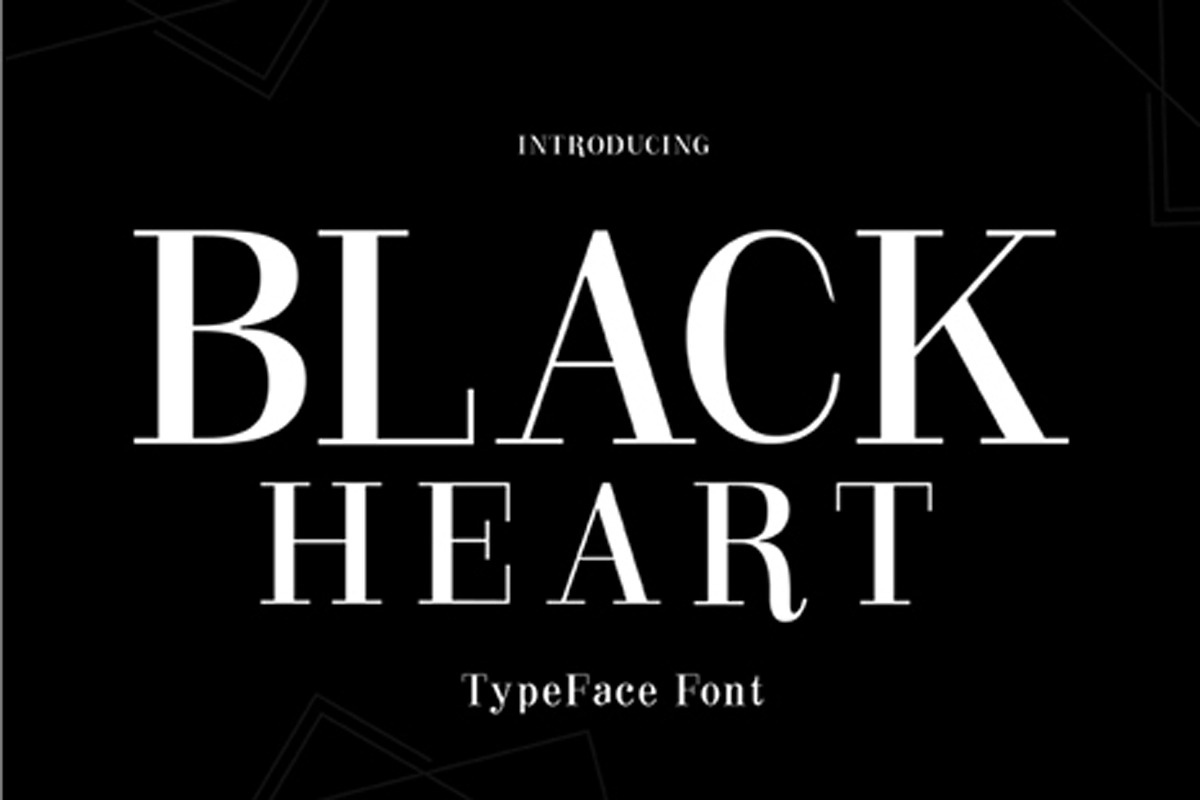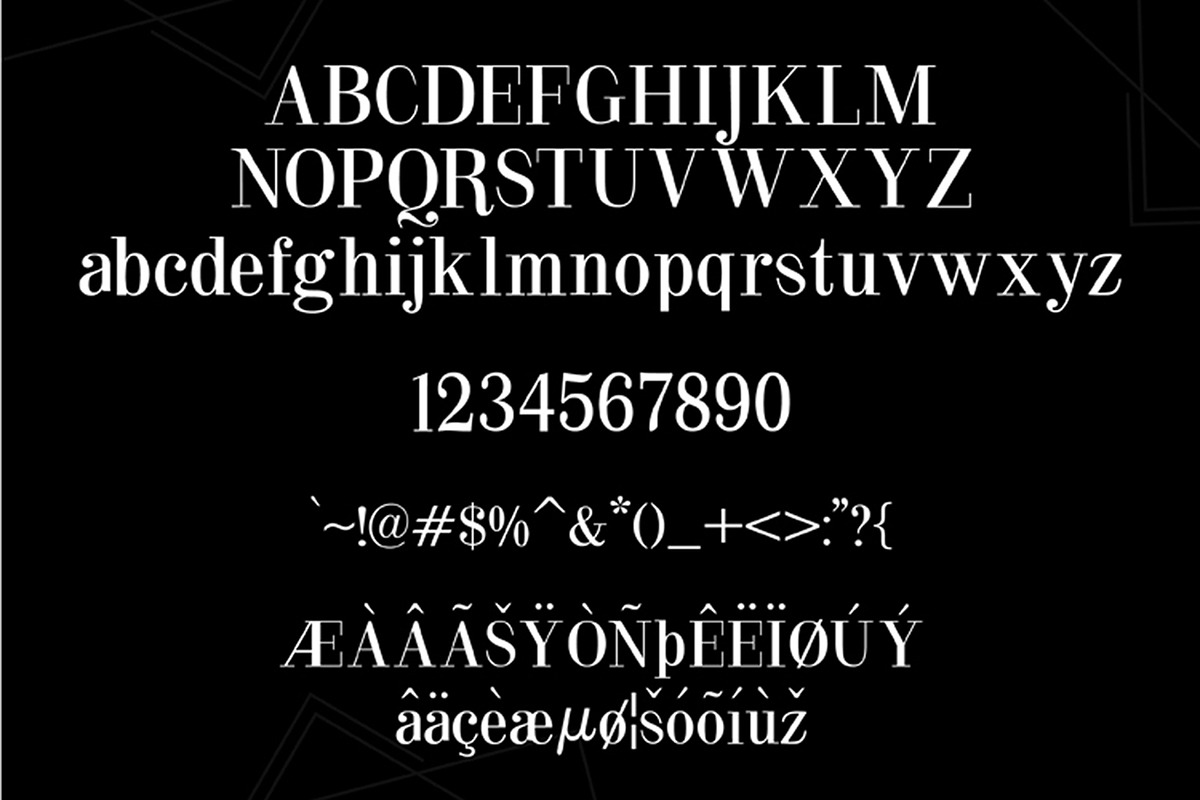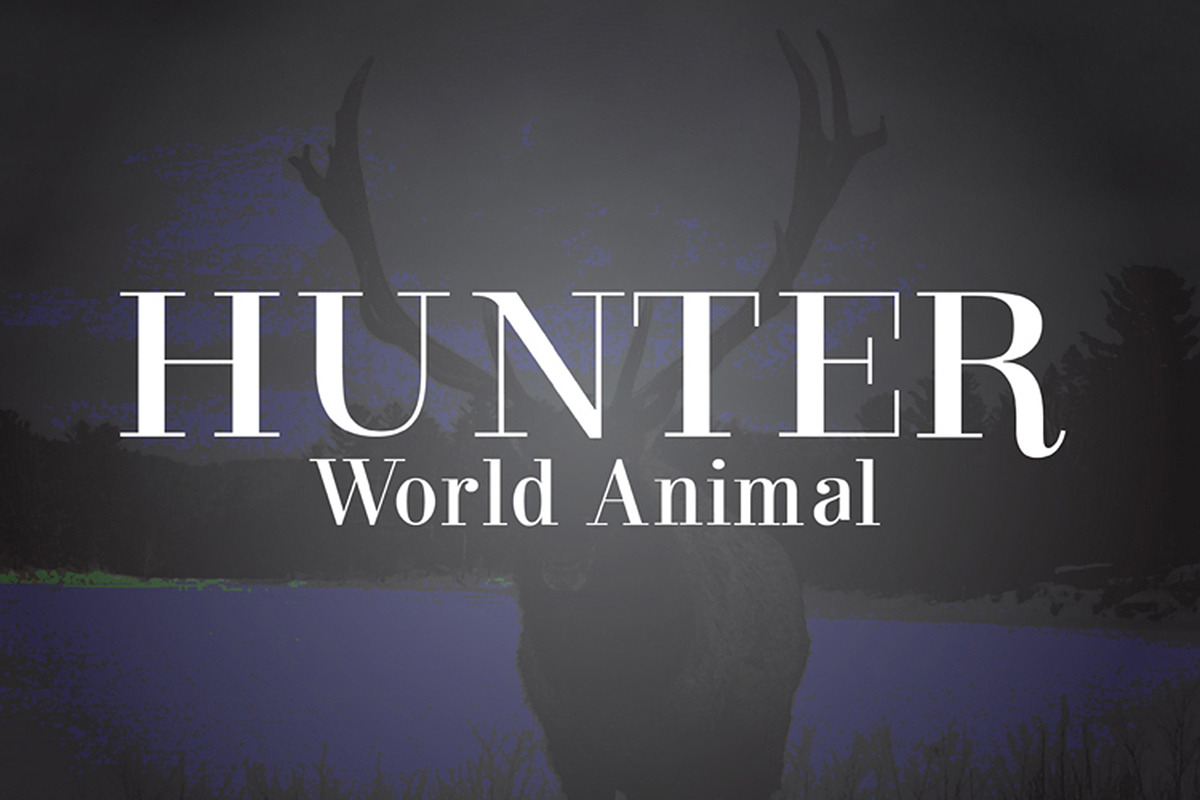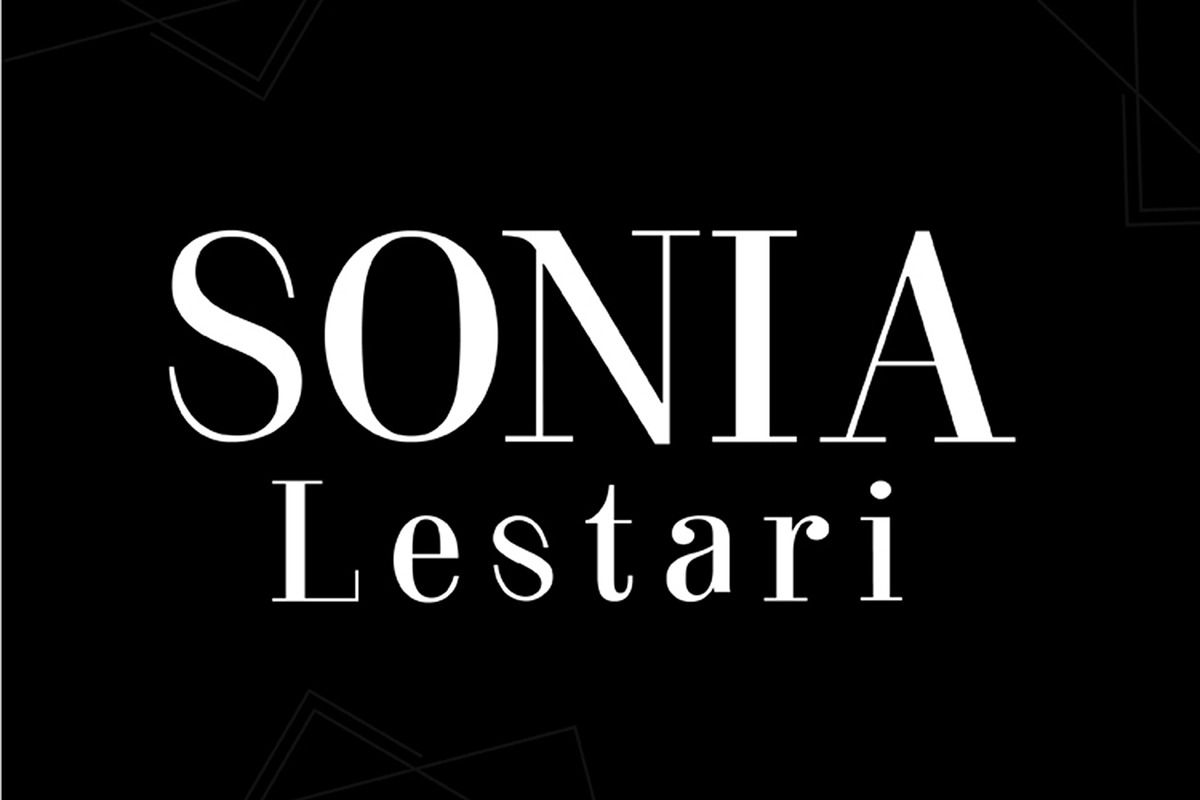
BLACK HEART
BLACK HEART is a classic style brush font that is moderated with a minimalist touch design, producing beautiful and elegant fonts,
will make you explore your design style easier, with various alternative styles that allow for logos, posters, covers, main packaging, t-shirts, business cards, wedding cards and more.
Uppercase Characters
Lowercase
Foreign Language Support: ÀÁÂÃÄÅÆÇÈÉÊËÌÍÎÏÐÑÒÓÔÕÖØÙÚÛÜÝßàáâãäåæçèéêëìíïñòóôõöøùúûüýÿ